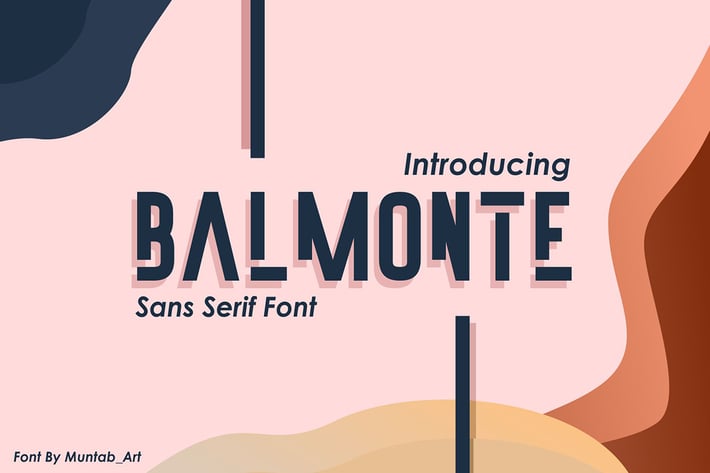
Balmonte | Modern Font
Balmonte fonts includes uppercase letters, numerals, a large range of punctuation. Sans serif font with modern style. Created for poster, web design, branding, illustrations, badges and some other works.